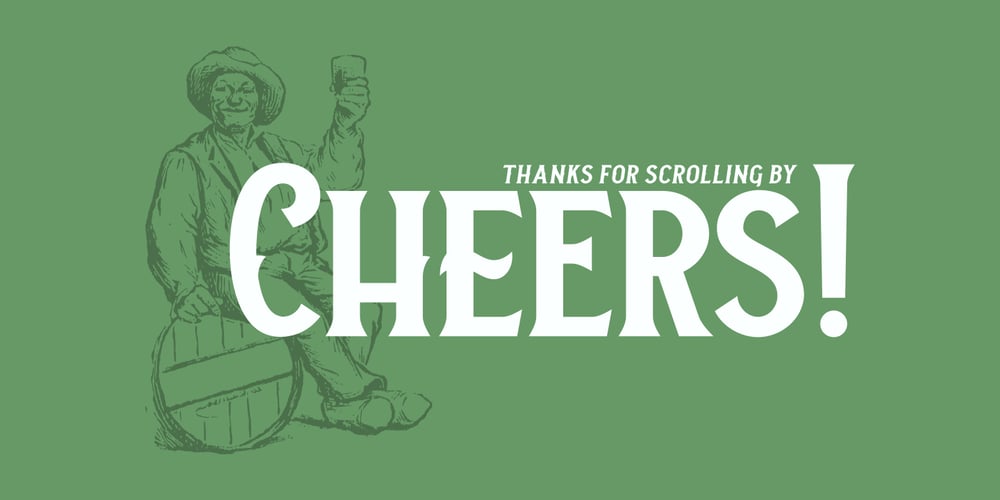
Neue Stanley Font Family was designed by Fahrizal Tawakkal and published by Fontdation. Neue Stanley contains 4 styles and family package options. Neue Stanley, all-caps vintage serif with strong, clean and sharp figures. Inspired by the classic letters that were used in the old advertisements (posters, labels, packagings, etc) Mouse-crafted with high attention to the details, satisfaction guaranteed! Whether you’re working on modern or classic themed designs, this font is a must have on your designing arsenal.